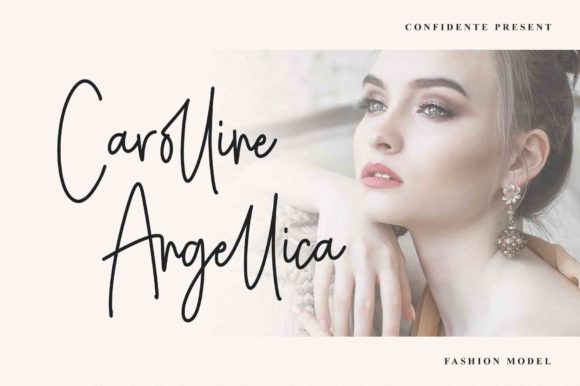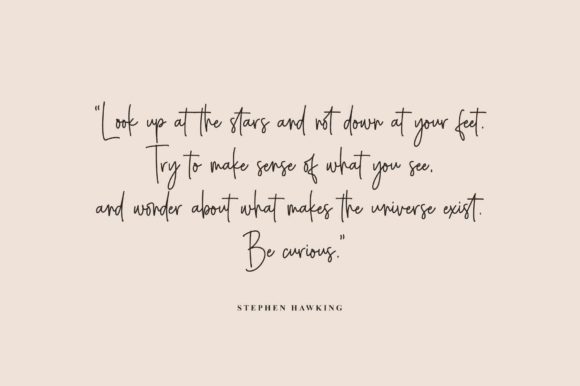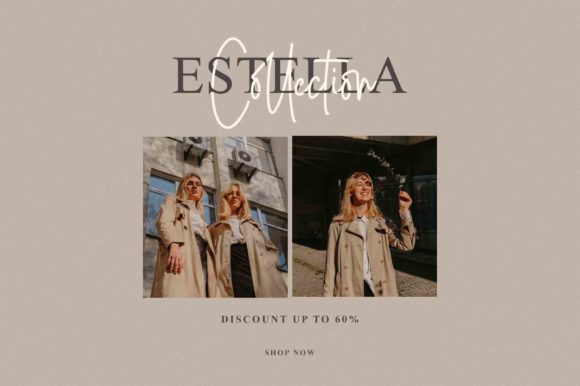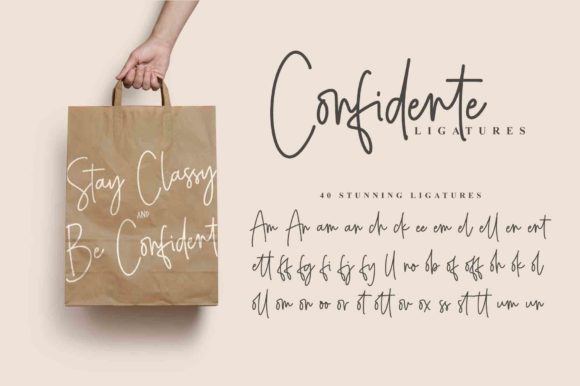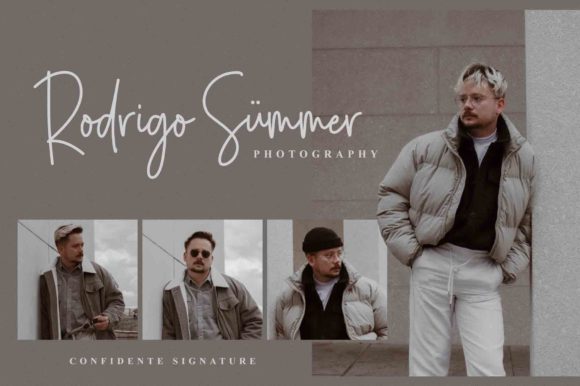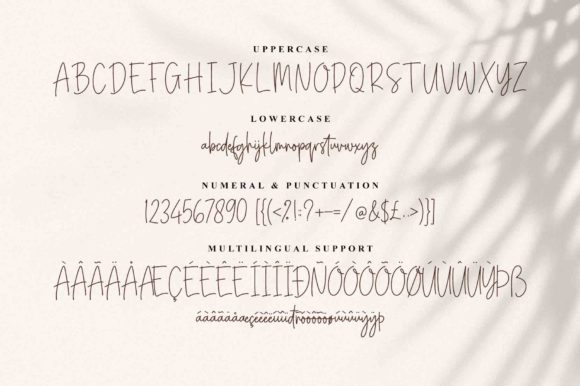
Introducing Confidente Signature Font: Elevate Your Designs with Charming Playfulness
Are you tired of using the same old fonts in your designs? Do you want to add a touch of personality and whimsy to your creative projects? Look no further than Confidente Signature Font, a lovely script font that is sure to make your designs stand out. In this article, we’ll take a closer look at Confidente Signature, its features, and how you can use it to take your designs to the next level.
What is Confidente Signature Font?
Confidente Signature is a beautiful script font that features charming, playful characters that seem to dance along the baseline. Its unique and elegant design makes it perfect for a wide range of creative projects, from branding and advertising to packaging and crafts. With Confidente Signature, you can add a touch of sophistication and whimsy to your designs, making them truly unforgettable.
Key Features of Confidente Signature Font
So, what makes Confidente Signature Font so special? Here are just a few of its key features:
- Charming and Playful Characters: Confidente Signature features unique and playful characters that are sure to add a touch of personality to your designs.
- PUA Encoded: Confidente Signature is PUA (Private Use Area) encoded, which means you can access all of the glyphs and swashes with ease. This makes it easy to customize your designs and add your own personal touch.
- Elegant and Sophisticated Design: Confidente Signature has an elegant and sophisticated design that makes it perfect for a wide range of creative projects.
How to Use Confidente Signature Font
Using Confidente Signature Font is easy. Here are just a few ways you can incorporate it into your designs:
- Branding and Advertising: Use Confidente Signature to create unique and memorable brand logos, advertisements, and marketing materials.
- Packaging and Labels: Add a touch of personality to your product packaging and labels with Confidente Signature.
- Crafts and DIY Projects: Use Confidente Signature to add a personal touch to your craft and DIY projects, such as handmade cards, gift tags, and scrapbooking.
- Digital Designs: Use Confidente Signature in your digital designs, such as social media graphics, blog posts, and website headers.
Benefits of Using Confidente Signature Font
So, why should you choose Confidente Signature Font for your designs? Here are just a few benefits:
- Unique and Memorable Designs: Confidente Signature helps you create unique and memorable designs that will stand out from the crowd.
- Easier to Read and Understand: The elegant and sophisticated design of Confidente Signature makes it easy to read and understand, even at small font sizes.
- Customizable: With PUA encoding, you can easily access all of the glyphs and swashes, making it easy to customize your designs.
- Time-Saving: Confidente Signature is easy to use and can save you time and effort in your design projects.
In conclusion, Confidente Signature Font is a beautiful and versatile script font that can add a touch of personality and whimsy to your designs. With its charming and playful characters, PUA encoding, and elegant design, it’s perfect for a wide range of creative projects. Whether you’re a designer, crafter, or DIY enthusiast, Confidente Signature is sure to become a favorite font in your collection.